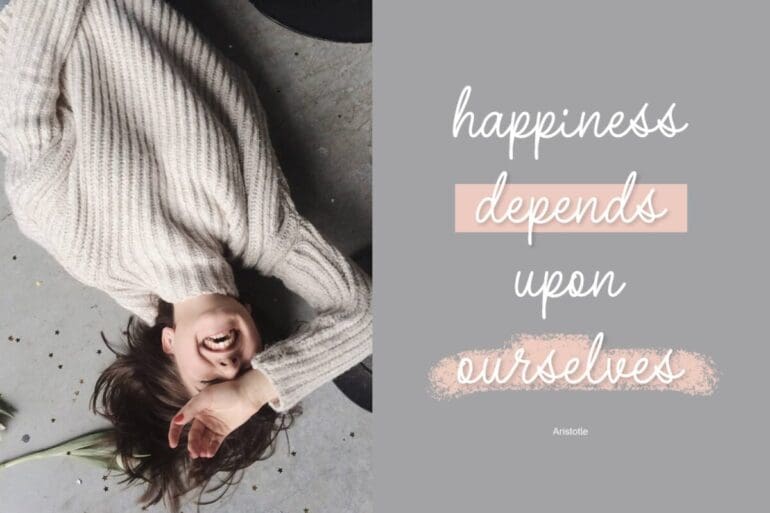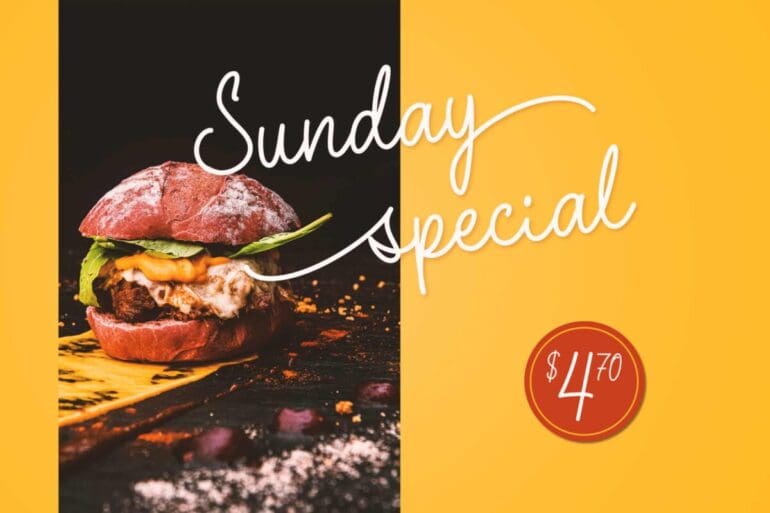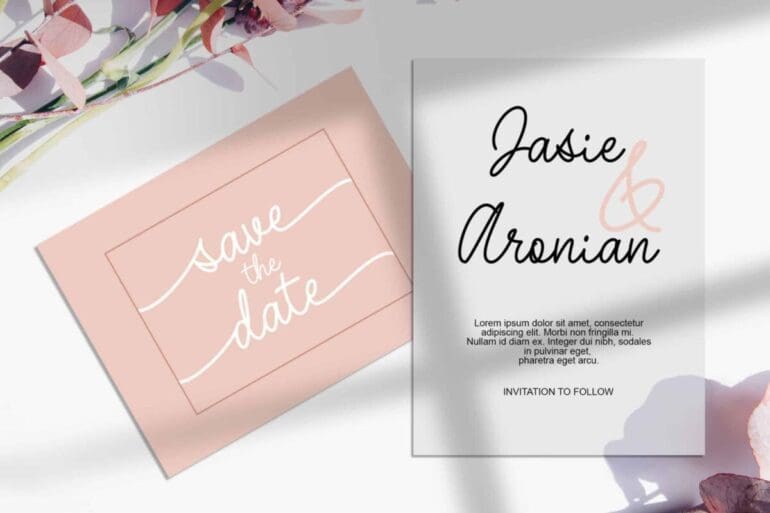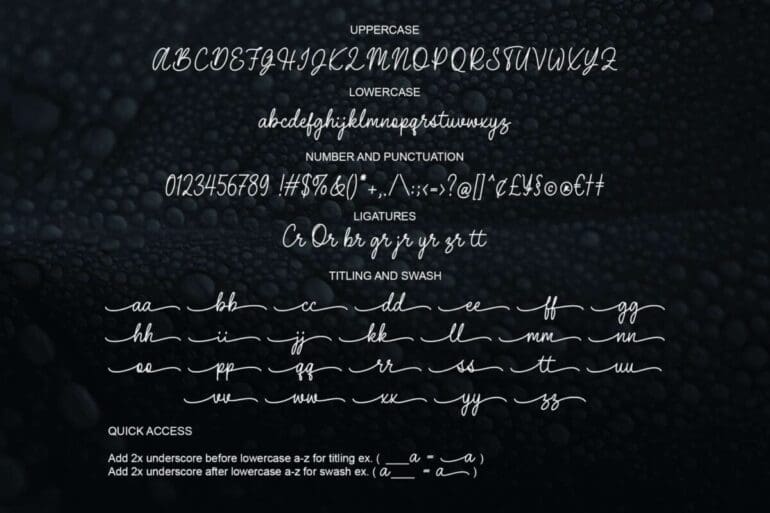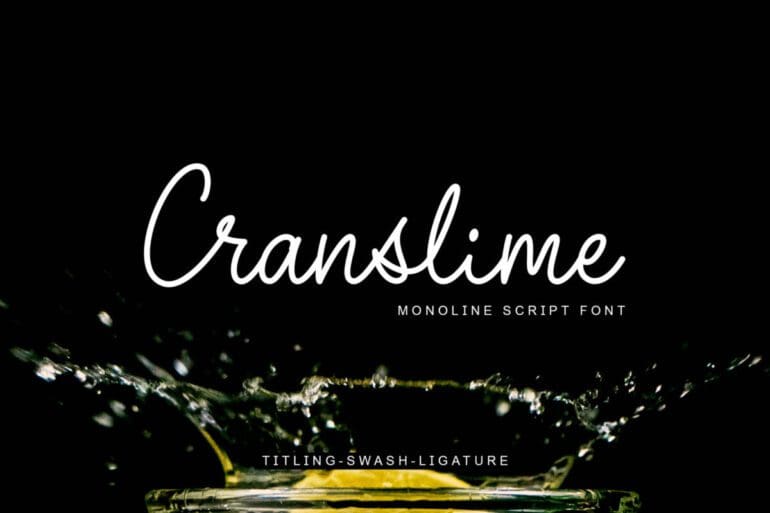
Cranslime Font
Cranslime is a beautiful handwritten script font in a monoline style. It’s perfect font for wedding invitations, stationery, photography, social media posts, product packaging, greeting cards, and much more!